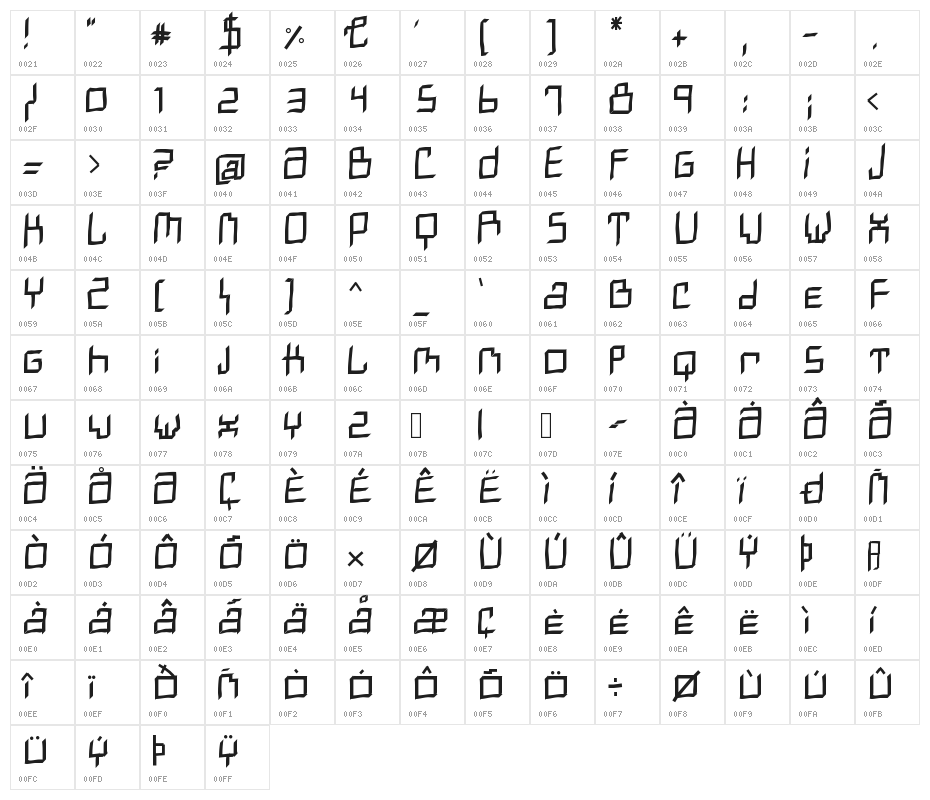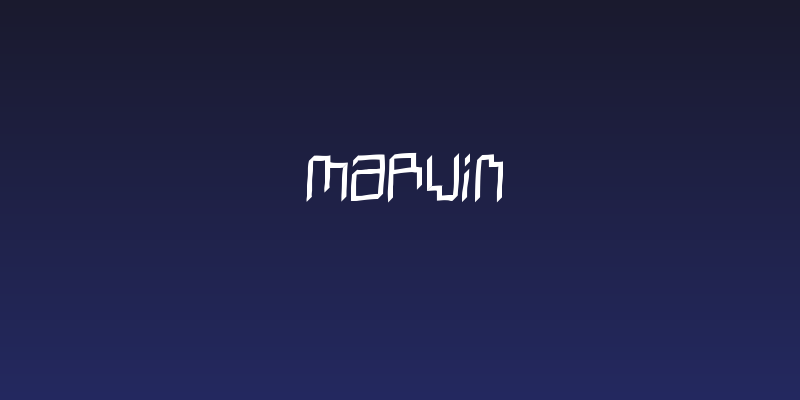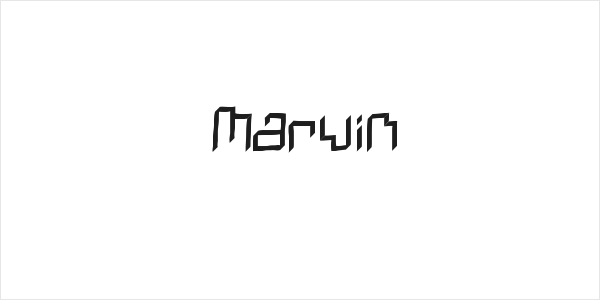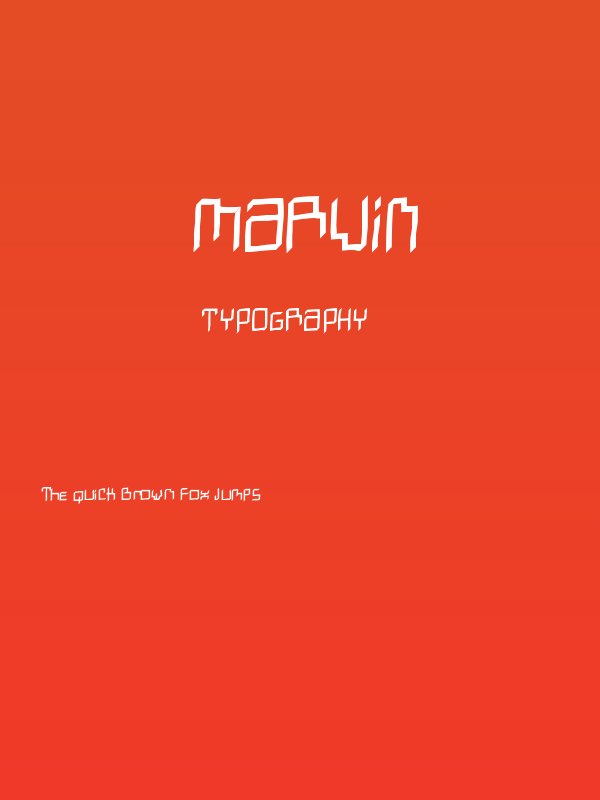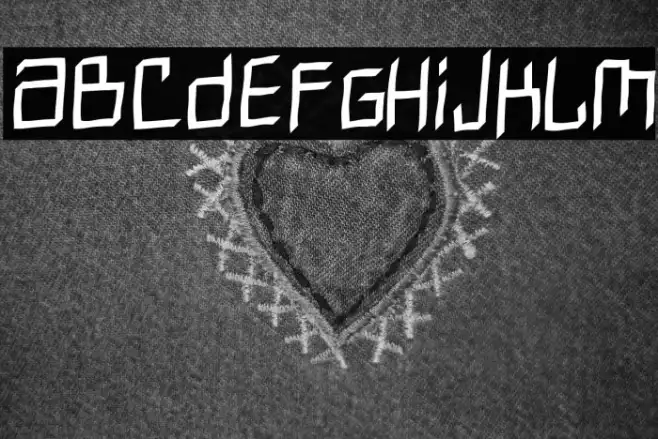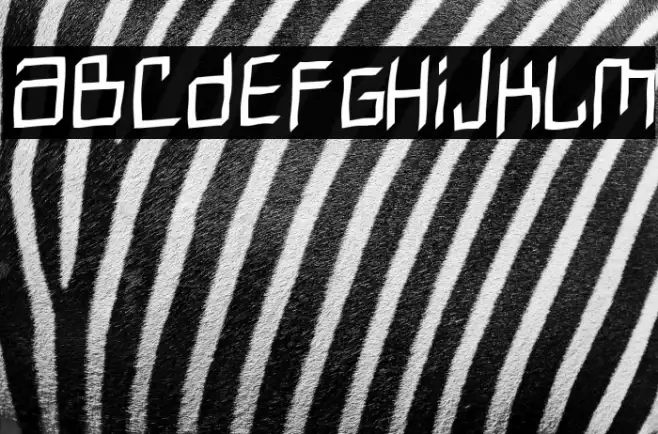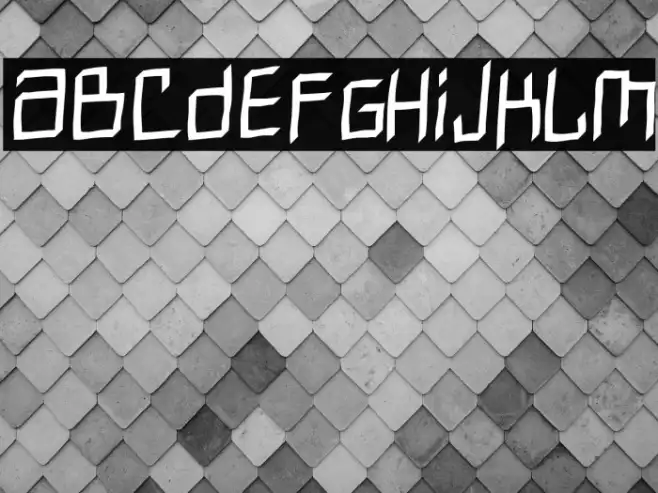
Marvin Font
Marvin Description
This font features a unique, angular design with a futuristic and edgy appearance. The characters are composed of sharp, geometric lines that create a sense of movement and dynamism. The uppercase and lowercase letters maintain a consistent style, with the uppercase being slightly more pronounced. Numbers and special characters follow the same angular theme, ensuring a cohesive look across all elements. The font's distinct style makes it stand out, offering a modern twist on traditional letterforms.
| Proposed Projects | Ideal for sci-fi themed projects, modern branding, video game titles, and edgy poster designs. |